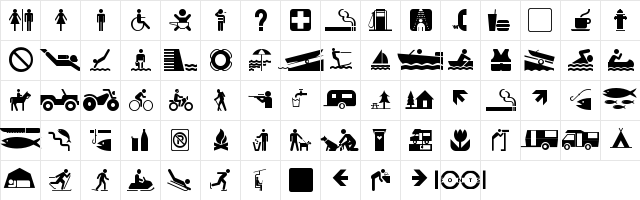
Glyphyx Two NF Regular
Regular · Nick's Fonts Nick Curtis ·
Design Context for Glyphyx Two NF Typeface
Glyphyx Two NF is a composed and adaptable typeface that performs quietly and consistently across a wide range of design contexts.